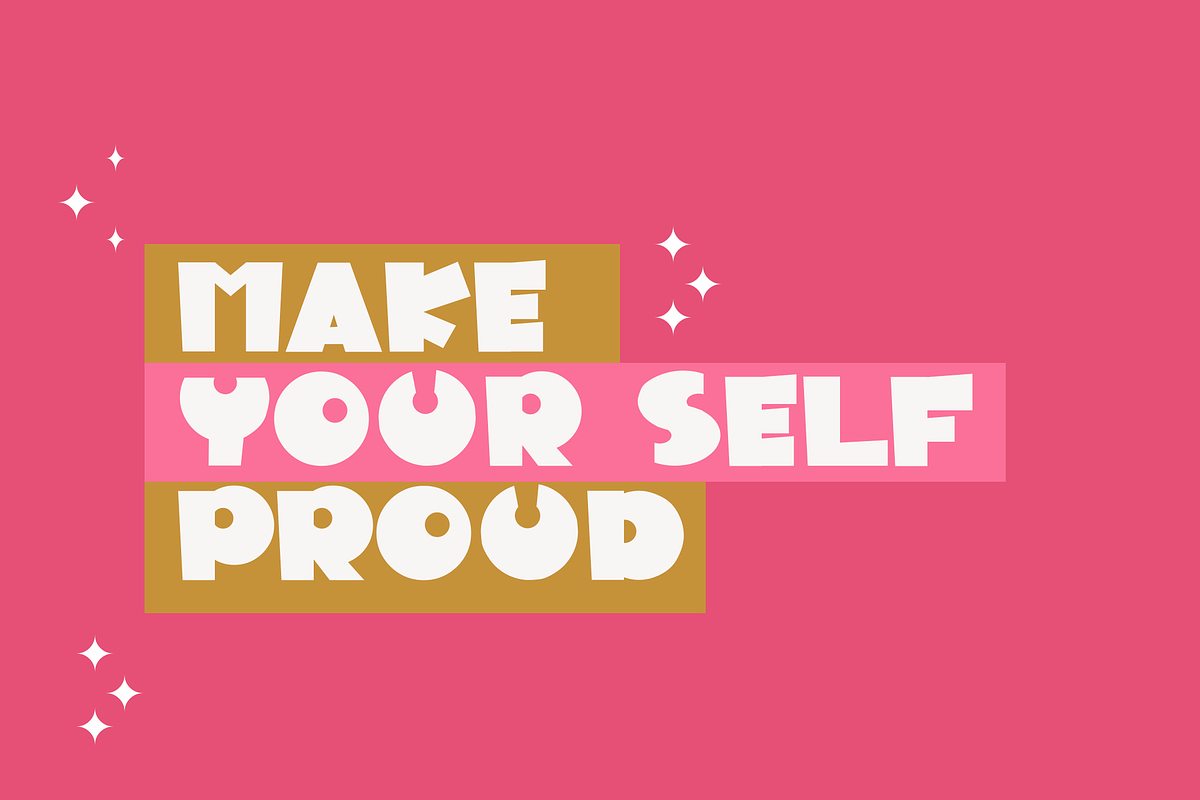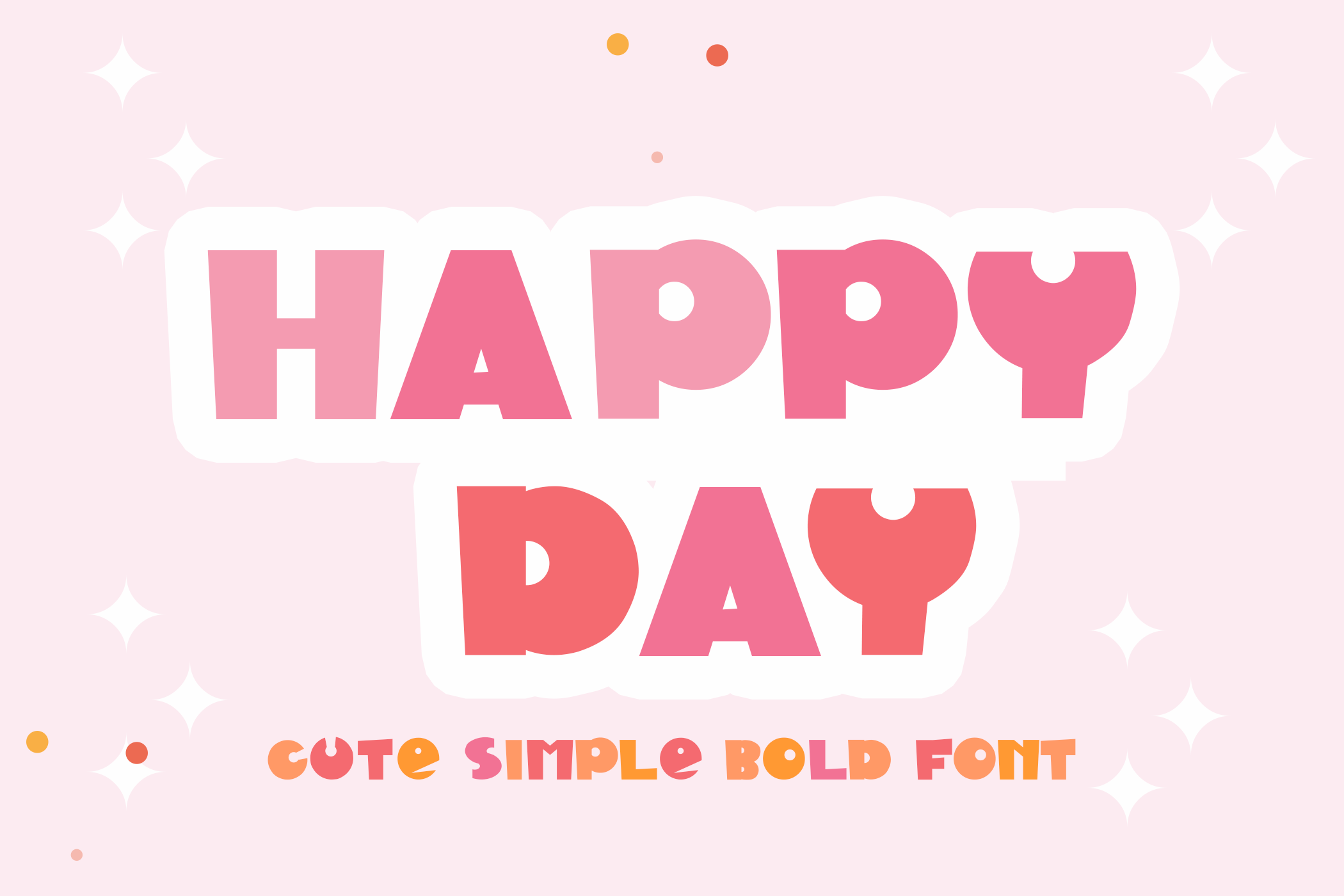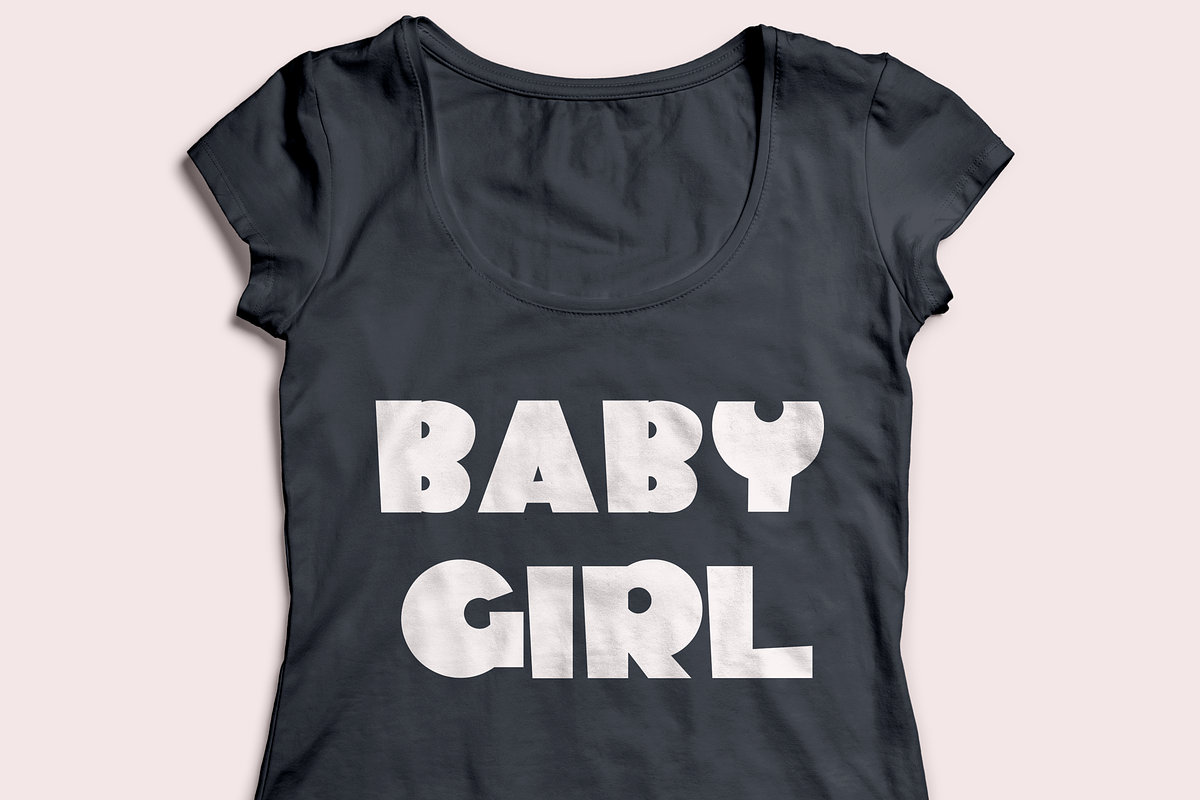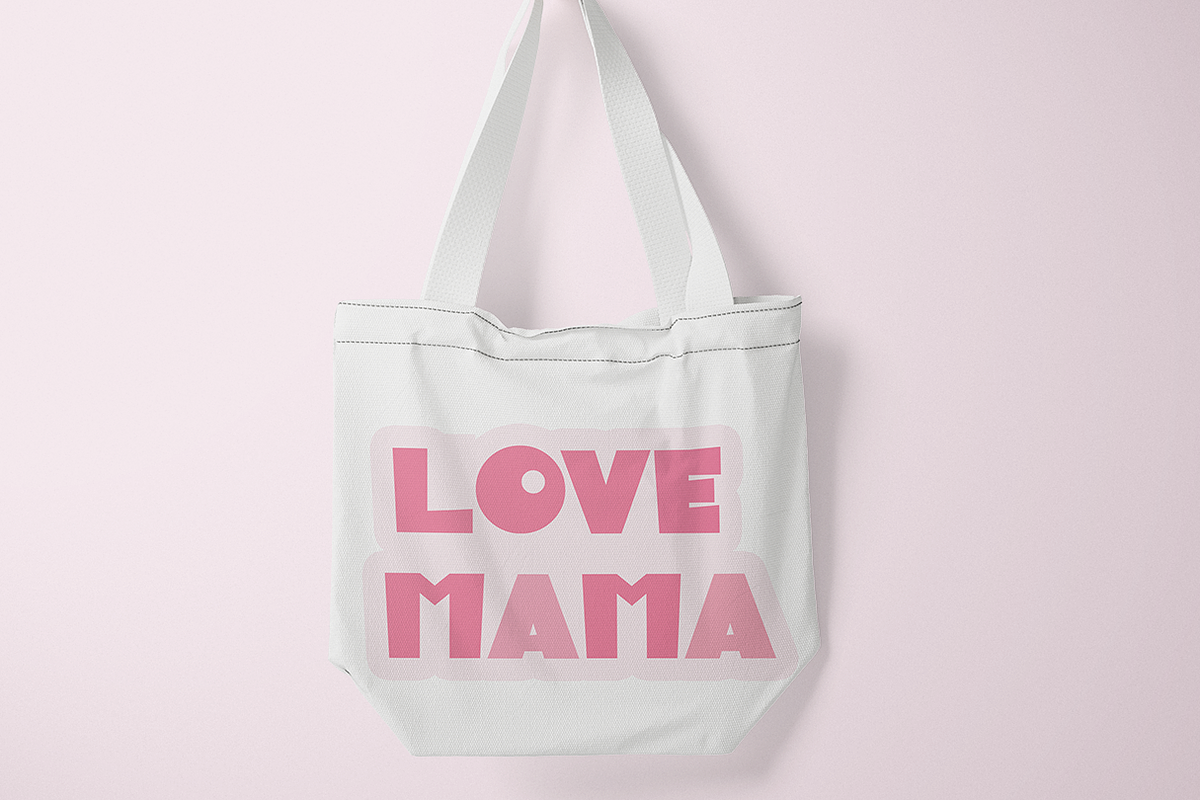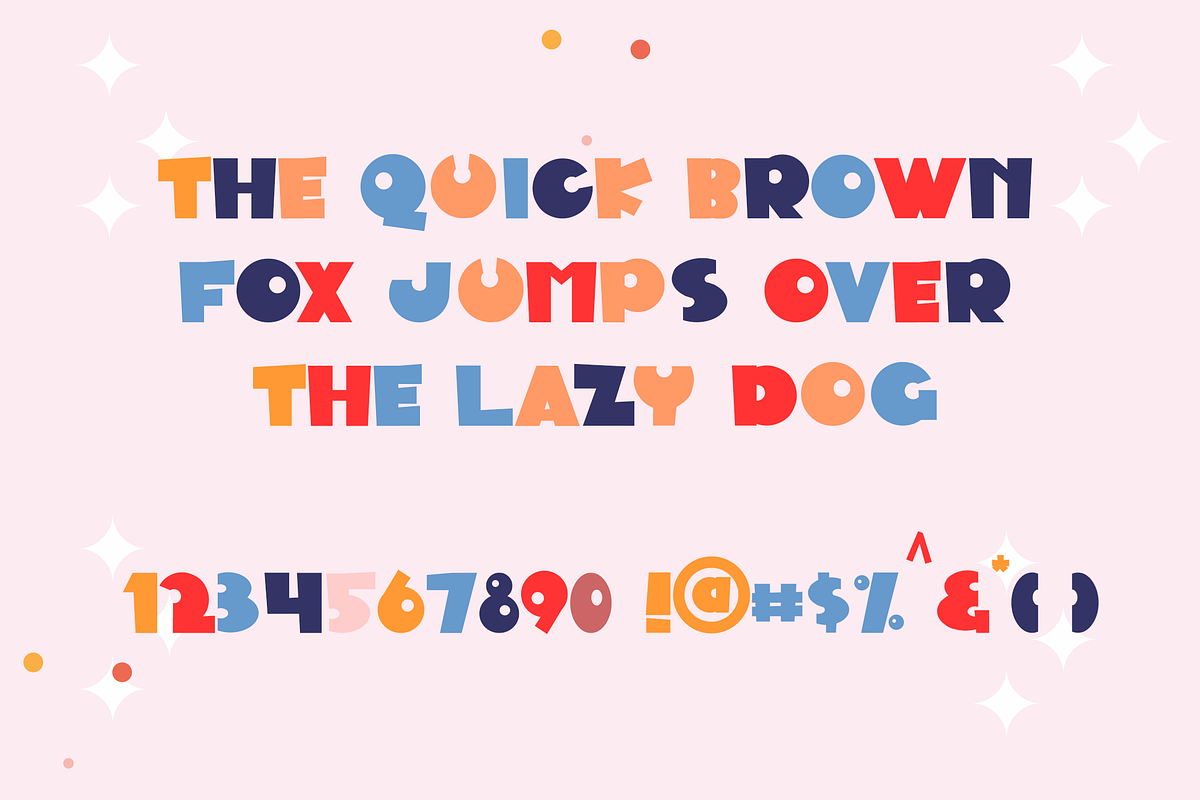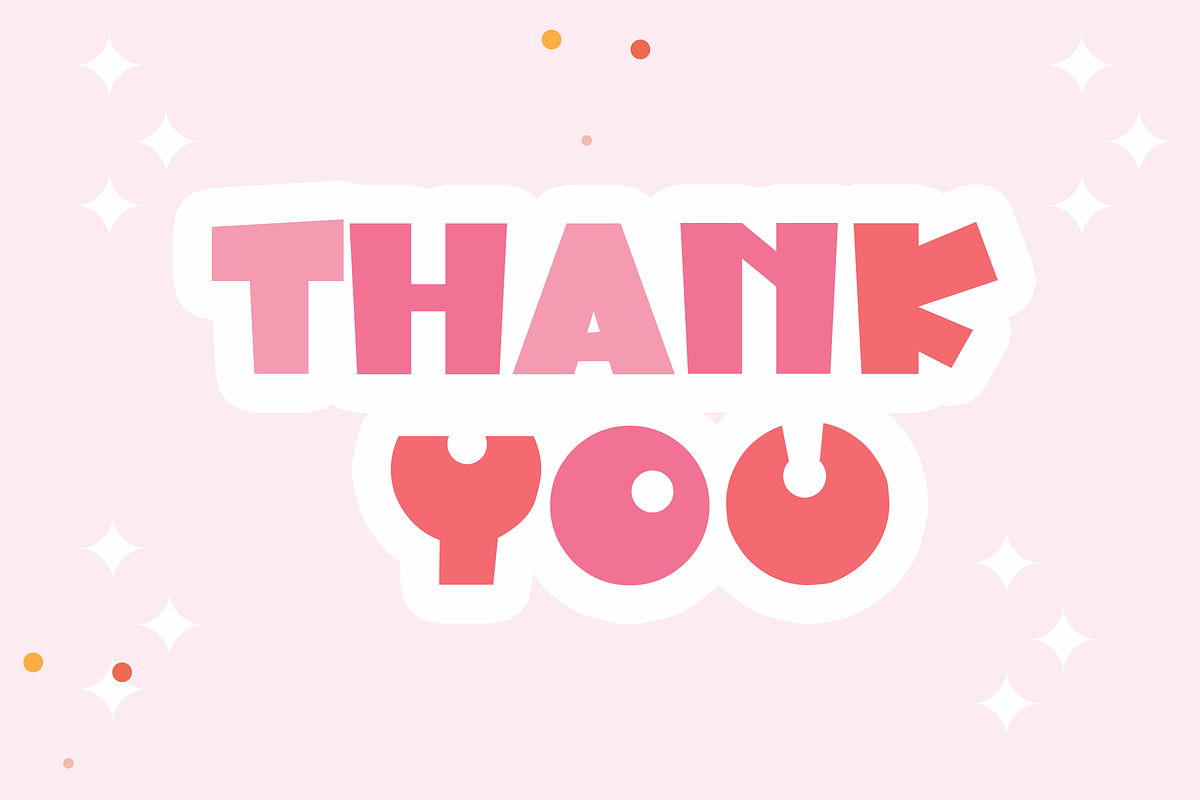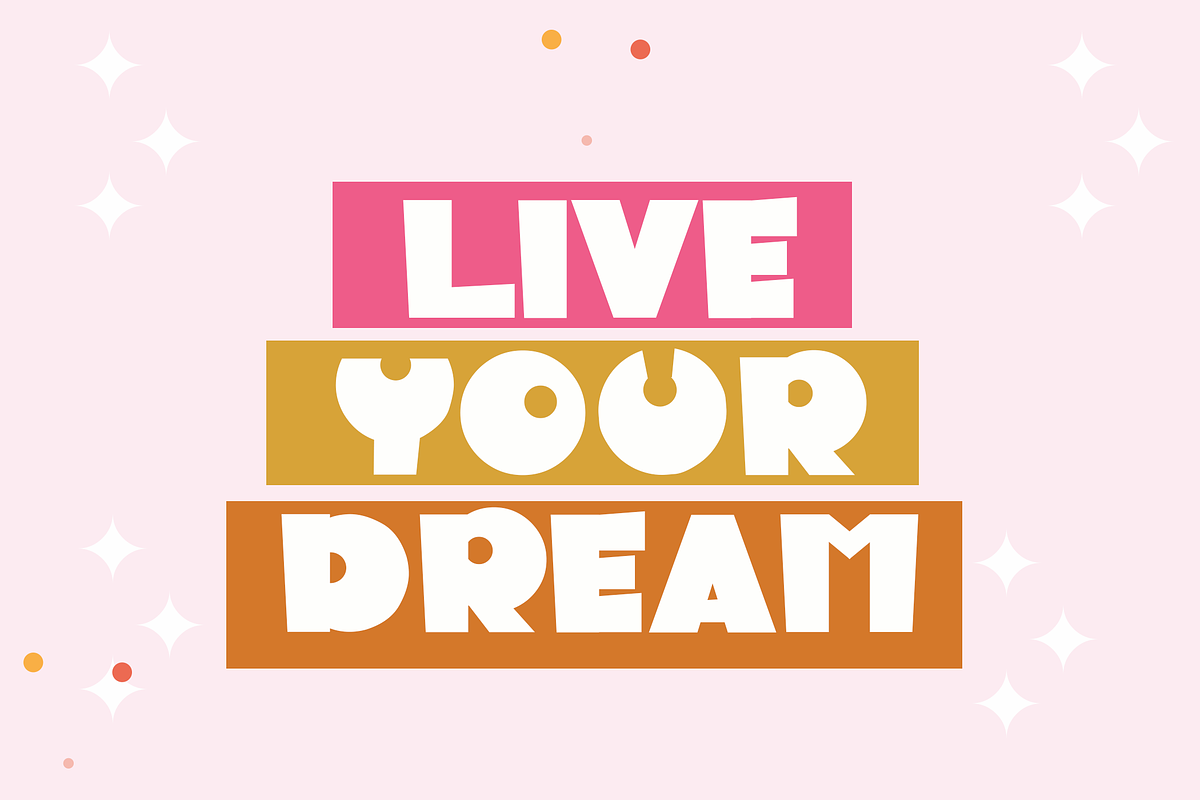
Happy Day Font
Happy Day is a fun display font! Happy Day is a cool, bold and thick lettered display font font perfect for creating a trendy look!! This font is perfect for cricut projects, procreate designs, shirts, svg designs, home decor, branding, logos, invitations and more! Currently supports English characters only. I'm more than happy to add additional characters and glyphs at request!